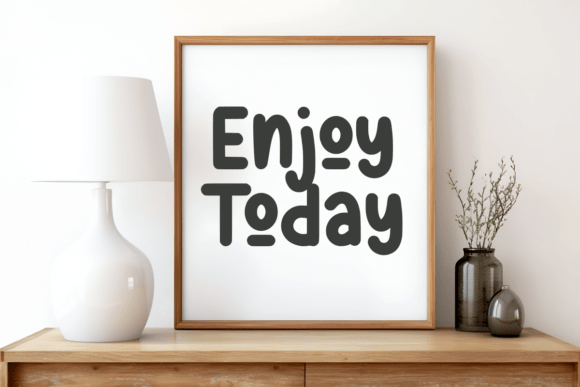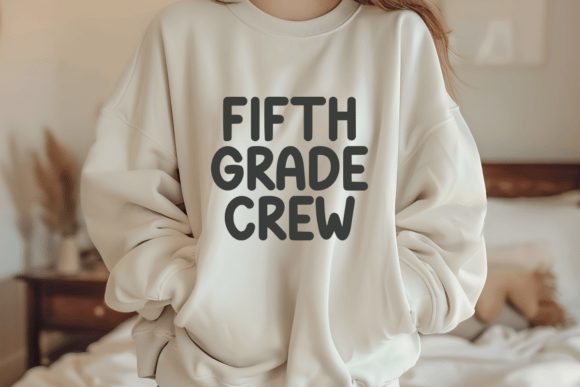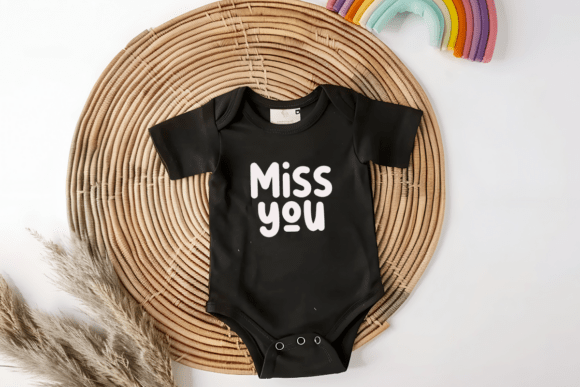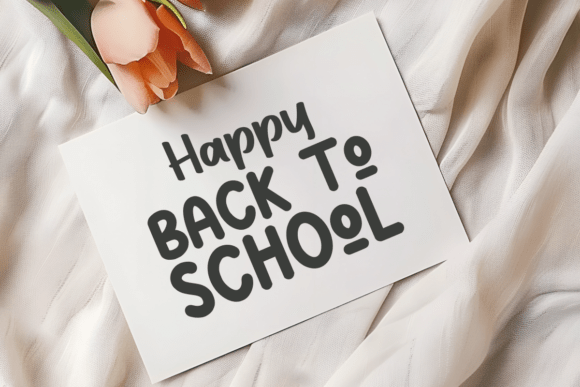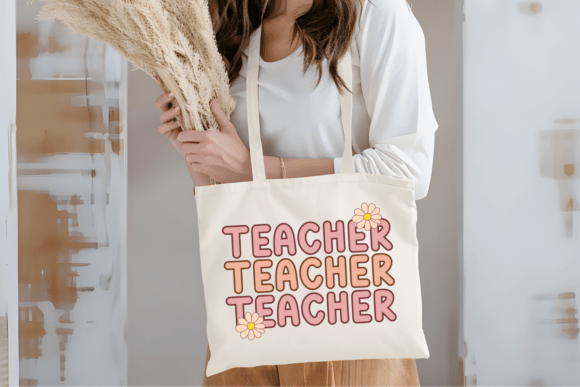
Getting Ready for a Creative New School Year
As you sit at your desk, surrounded by pens, pencils, and half-finished projects, you feel the familiar rush of inspiration. The blank page stares back at you, waiting to be filled with ideas, doodles, and creativity. It’s moments like these that spark the joy of learning and making – and that’s exactly what the Back to School Regular Font Font is all about.
This charming display font is designed to capture the essence of playful school doodles, bringing a sense of spontaneity and creativity to your designs. With its hand-drawn charm, it’s perfect for a wide range of educational and imaginative projects. Whether you’re a designer, educator, or simply someone who loves to create, the Back to School Regular Font Font is a valuable addition to your toolkit.
Key Features of “Back to School Regular Font Font”
- Font Family: Back to School Regular Font Font
- Unique Characteristics: The font features a playful, handwritten style with a mix of cursive and print elements, perfect for creating a fun and educational atmosphere in back-to-school designs
- Font Weight: Regular (400)
Back to School Regular Font Review
Overall, I was quite excited to dive into the “Back to School Regular Font”. Here are my thoughts on what works well and what could use some improvement:
- Unique charm: This font has a distinct personality that’s perfect for adding a playful touch to school-related materials.
- Readability: Despite its whimsical feel, the font is surprisingly easy to read, even at smaller sizes.
- Cross-platform compatibility: I had no issues using this font in various design tools and software.
- Limited versatility: This font is geared towards a specific niche (back to school) and may not be as versatile for other design projects.
- No bold or italic options: If you need to emphasize certain text or create a contrasting effect, you’ll be limited to the regular font style.
- May not be suitable for formal or professional designs: The playful nature of this font might not be suitable for more formal or professional designs.
While the “Back to School Regular Font” has its charms, it’s essential to consider its limitations before adding it to your design toolkit. If you’re working on school-related projects or need a lighthearted font, this might be a great choice. However, for more general design projects, you may want to consider a more versatile font option.
Back to School Regular Font Font: A Practical Application Guide
For best results, use the font in headings and titles to add a playful touch to your design.
Use the font to create eye-catching titles and headings in your design.
Use the font to add a playful touch to your presentations and documents.
For best results, use the Back to School Regular Font Font in headings, titles, and short paragraphs.
It’s perfect for creating a fun and playful atmosphere in educational designs, such as back to school flyers, newsletters, and social media posts.
Experiment with different font sizes and colors to create visual interest and add emphasis to your design.
Alternatives to “Back to School Regular Font Font” for Designers
Open Sans is a modern sans-serif font designed by Steve Matteson. It’s highly legible and suitable for digital interfaces. Use Open Sans when you need a clean and neutral font for body text. Compared to Back to School Regular Font Font, Open Sans is more minimalist and has a wider range of font sizes and weights.
Lato is a sans-serif font designed by Łukasz Dziedzic. It’s known for its clean lines and geometric shapes. Use Lato when you need a font that’s both modern and elegant. Compared to Back to School Regular Font Font, Lato is more refined and has a softer feel.
Montserat is a sans-serif font designed by Julieta Ulanovsky. It’s based on the street signs in the Montserrat neighborhood of Buenos Aires. Use Montserrat when you need a font that’s urban and edgy. Compared to Back to School Regular Font Font, Montserrat is more bold and has a stronger character.